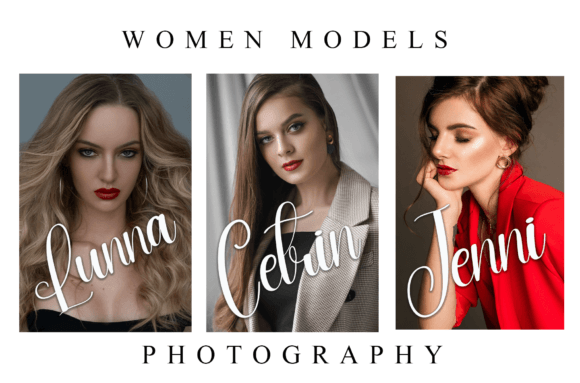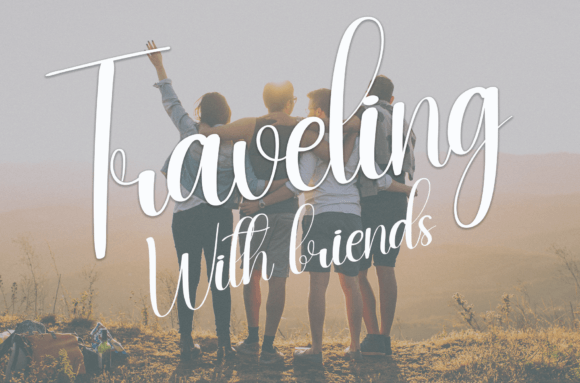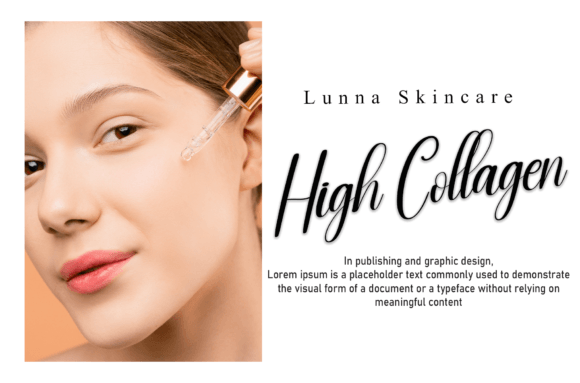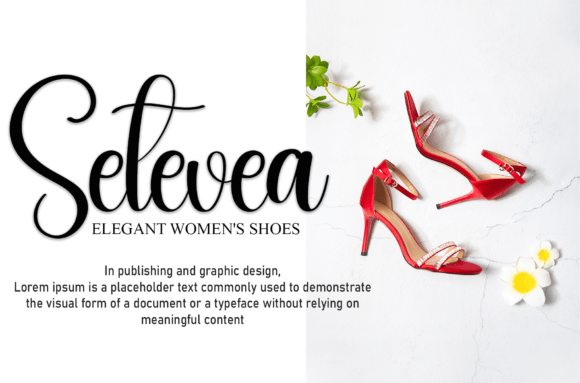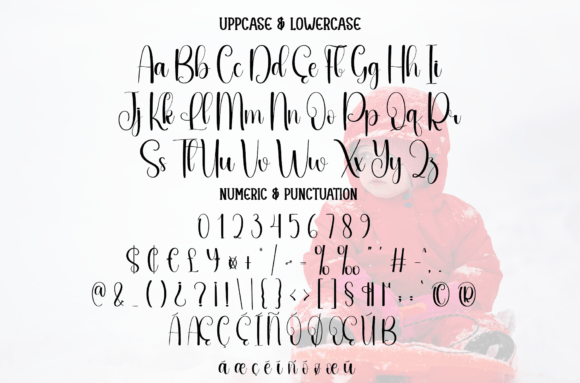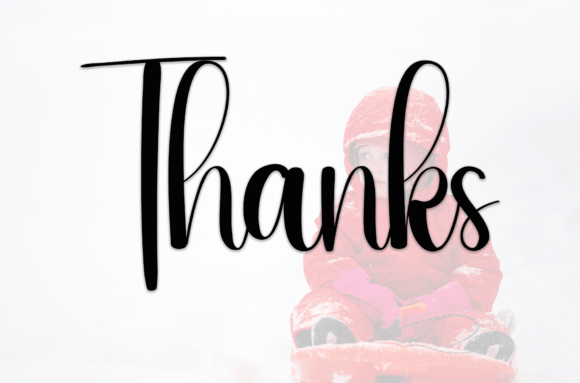
Introduction to Nephew Font
Have you ever found yourself staring at a blank page, searching for the perfect font to bring your creative project to life? I know I have. As a designer, I’ve spent countless hours browsing through font libraries, trying to find that one special font that adds a touch of magic to my work. And then, one day, I stumbled upon the Nephew Font – a sweet and friendly handwritten font that has become my go-to choice for any design that needs a fun and playful touch.
What sets the Nephew Font apart from other fonts is its high quality design and versatility. With a fresh and neat aesthetic, it’s perfect for writing wedding invitations, cards, or any other design that requires a personal and creative touch. And the best part? It’s a free download with a transparent background, making it easy to integrate into any design project.
Key Features of Nephew Font
- High-quality design resource ideal for creative projects, offering a unique and modern style.
- Nephew Font is a versatile design resource suitable for various creative projects, including graphic design, digital art, and more.
- Its unique characteristics and high-quality design make it an excellent addition to any design resource collection.
Honest Review: Nephew Font
I recently had the chance to work with the Nephew Font, and I must say, it’s a great addition to any design resource collection. This font is perfect for a high-quality, creative project that requires a unique touch.
- Unique and quirky design that adds character to any text
- Works well with both digital and print designs, thanks to its transparent background
- Easy to customize and style to fit any design aesthetic
- May not be suitable for formal or professional designs due to its playful nature
- Some users may find the font to be too busy or overwhelming, especially when used in large quantities
Overall, I’m impressed with the Nephew Font. It’s a fantastic design resource that can add a lot of personality to a project. Just be sure to use it wisely and consider the context in which it will be used. With a little creativity, the Nephew Font can be a real game-changer for your next design project. ✨
Tips for Getting the Most Out of Nephew Font
Experiment with different font sizes and colors to create a unique design. Use the transparent background to create visually appealing overlays. Combine the Nephew Font with other design elements for a high-quality, creative project.
The Nephew Font is perfect for logo design, branding, and marketing materials. Its high-quality design and transparent background make it ideal for overlaying on images or using as a standalone font.
Pixelated Font is a free download font that’s perfect for retro-style projects, such as video game-inspired designs or vintage-inspired graphics. It has a transparent background and is highly customizable.
When to use: Pixelated Font is ideal for projects that require a pixelated, retro look. It’s a great alternative to Nephew Font for designers who need a more nostalgic feel.
Is the Nephew Font available with a transparent background?
Yes, the Nephew Font is available with a transparent background, making it ideal for use in creative projects that require a high level of design flexibility. The transparent background allows you to easily layer the font over other design elements, creating a seamless and professional-looking design.